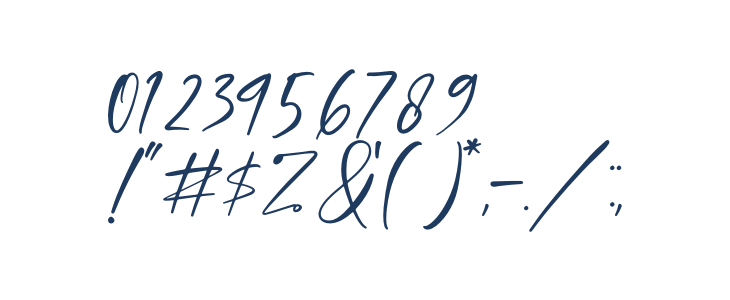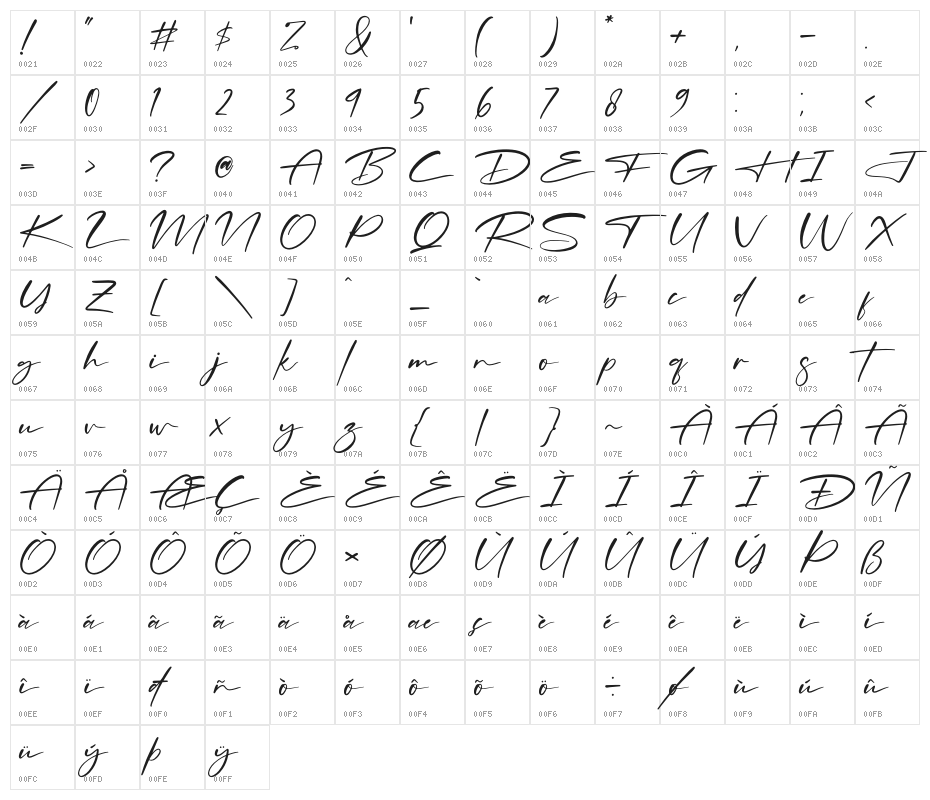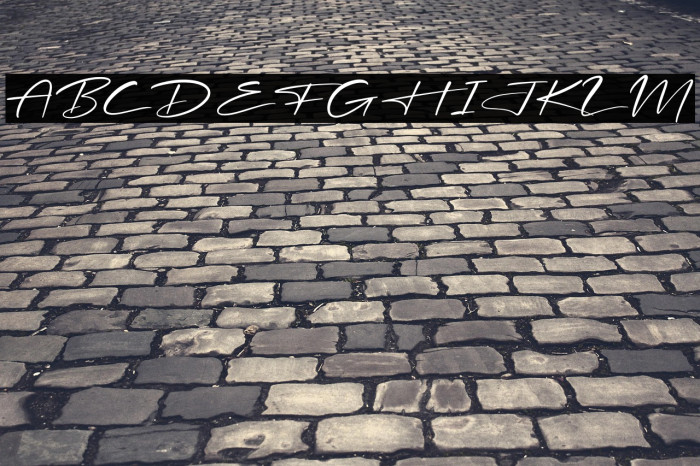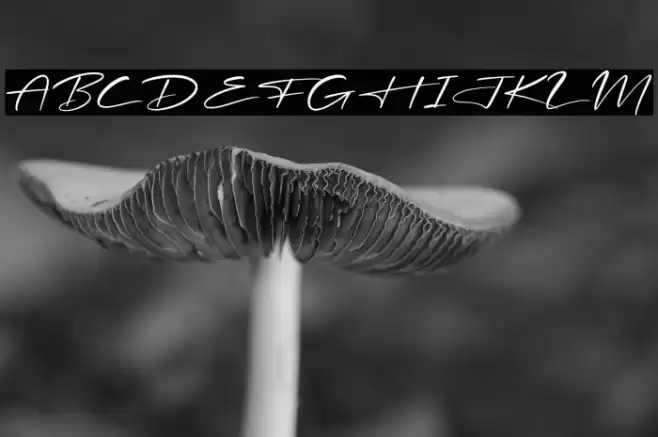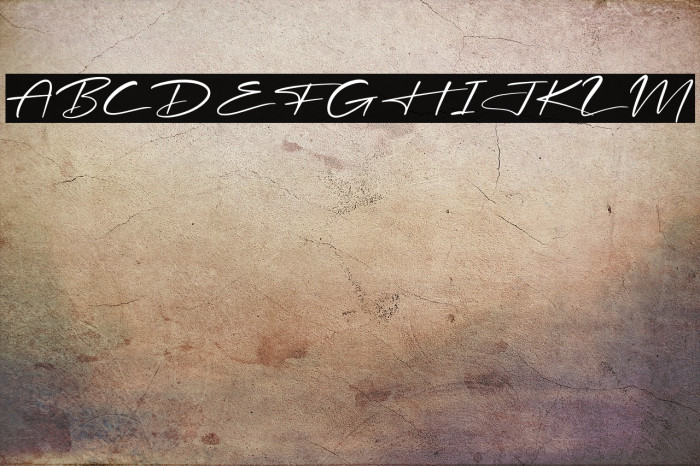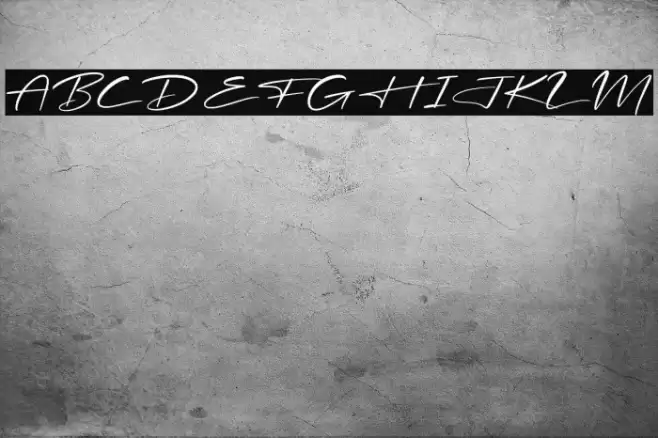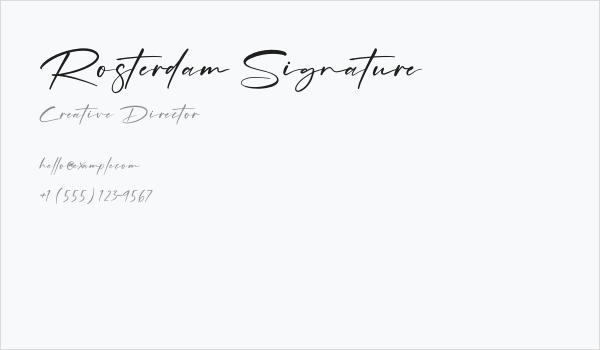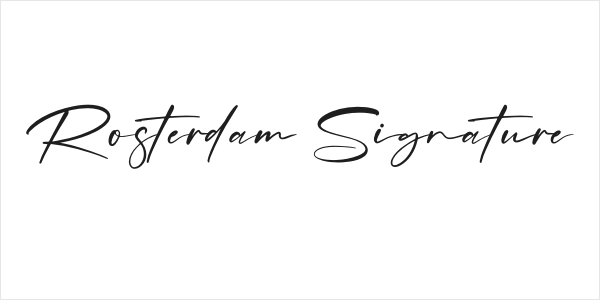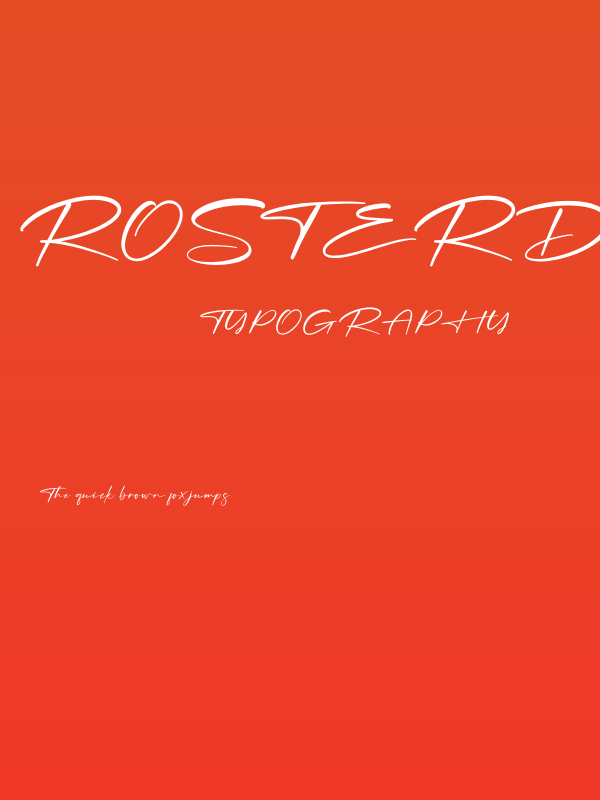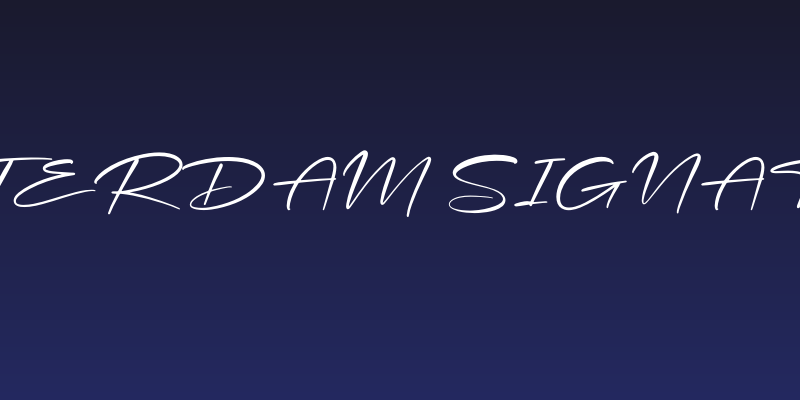
Rosterdam Signature Font
Rosterdam Signature Description
This font exudes a modern and elegant script style, characterized by its fluid and cursive letterforms. The uppercase letters are tall and slightly slanted, giving a sense of movement and grace. The lowercase letters are connected, enhancing the script's natural flow. Numbers and special characters maintain the same fluidity, ensuring consistency across all glyphs. The strokes are smooth with a medium contrast, adding to the font's legibility while maintaining its stylish appearance. This font is perfect for projects that require a personal touch, such as invitations, branding, and signature logos.
| Proposed Projects | Ideal for invitations, branding, and signature logos. |